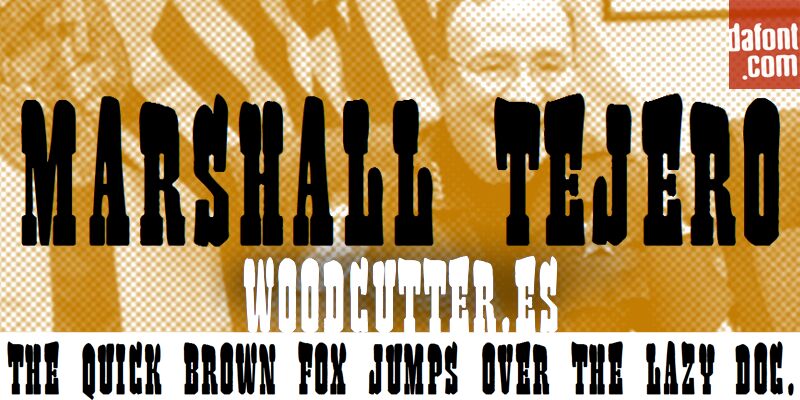
Marshall Tejero font from Woodcutter is a condensed display font with a Western inspiration that exudes a vibrant and strong character. The distressed texture gives the design both a rugged aesthetic and nostalgic appeal.